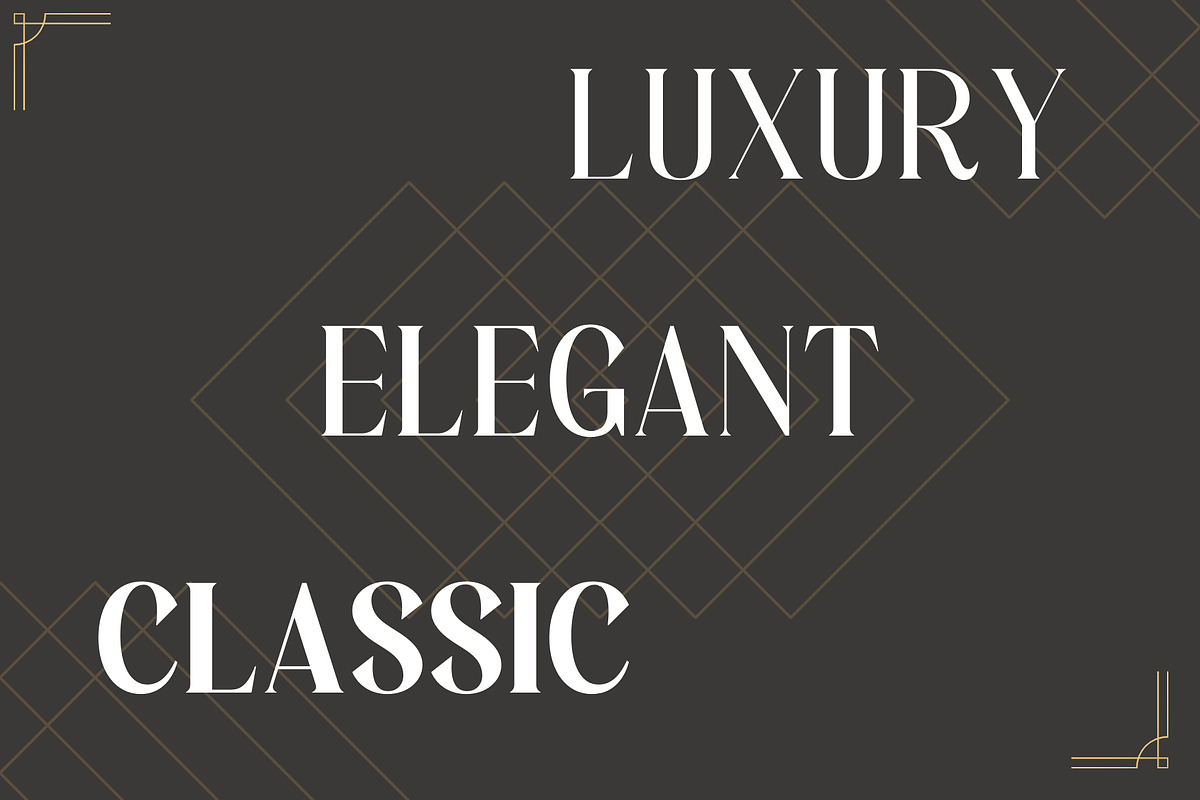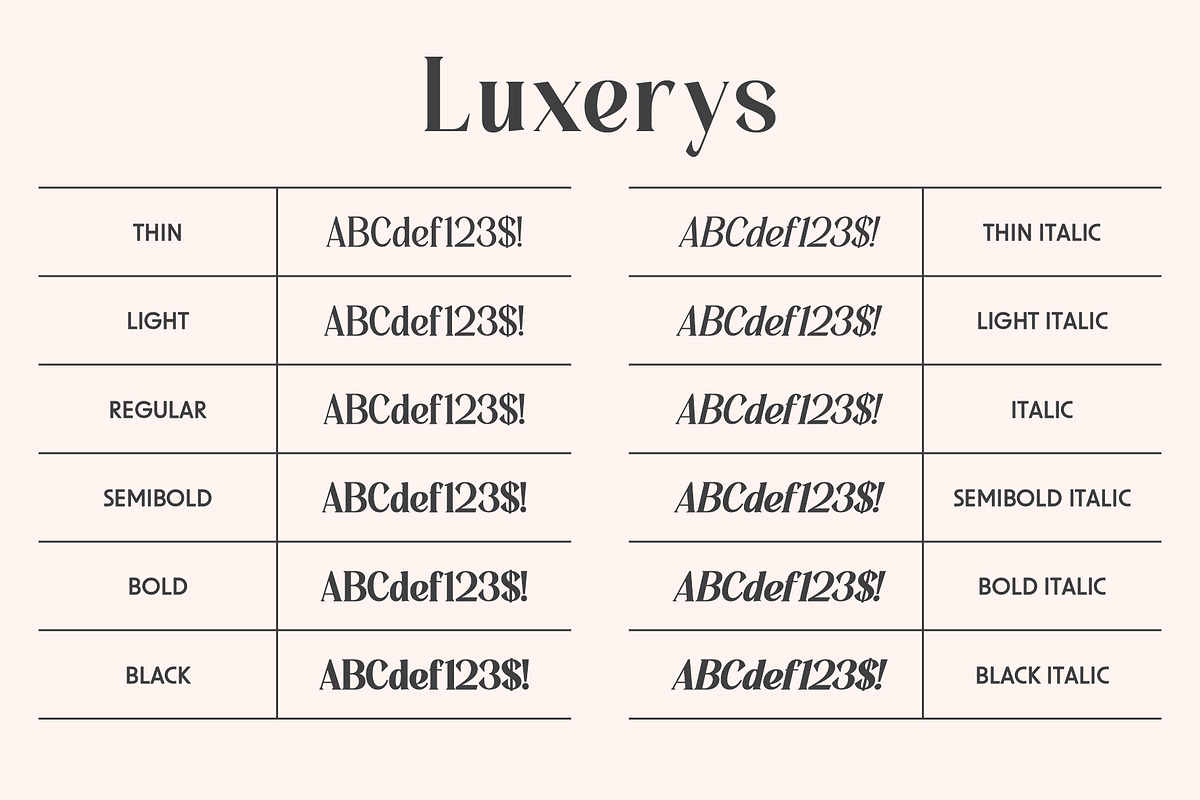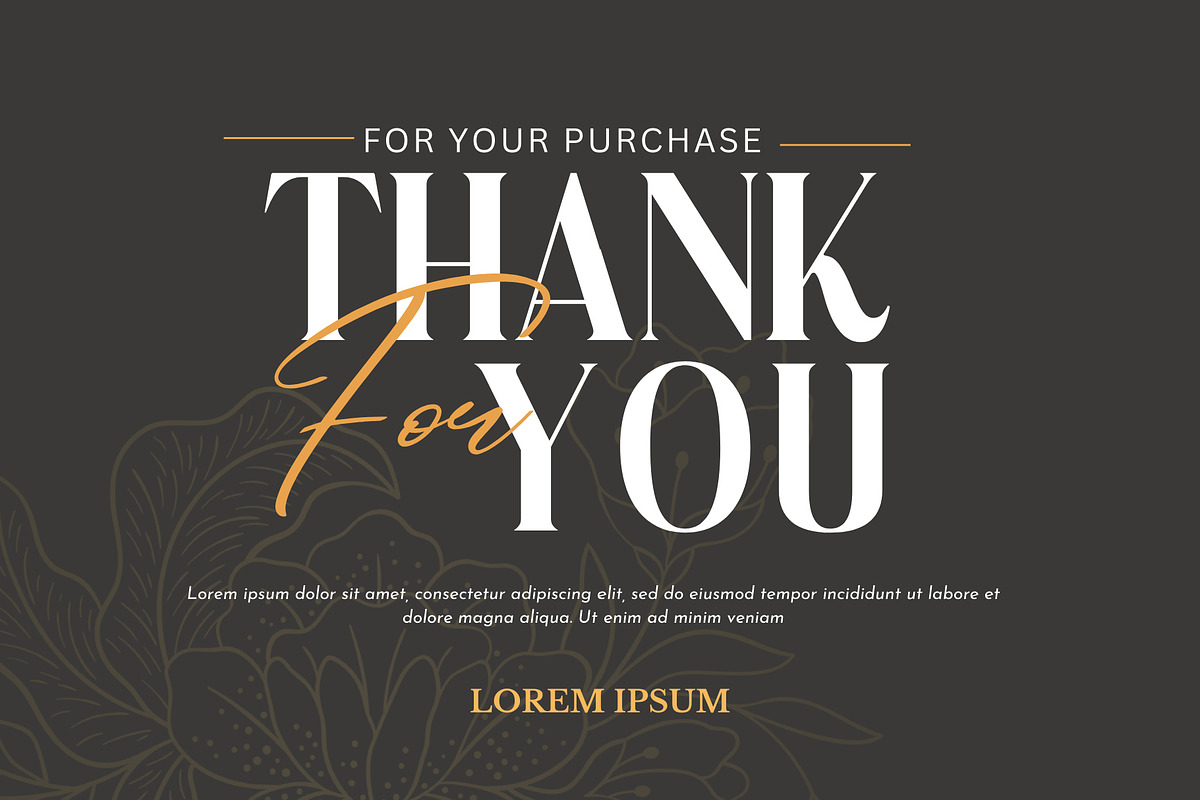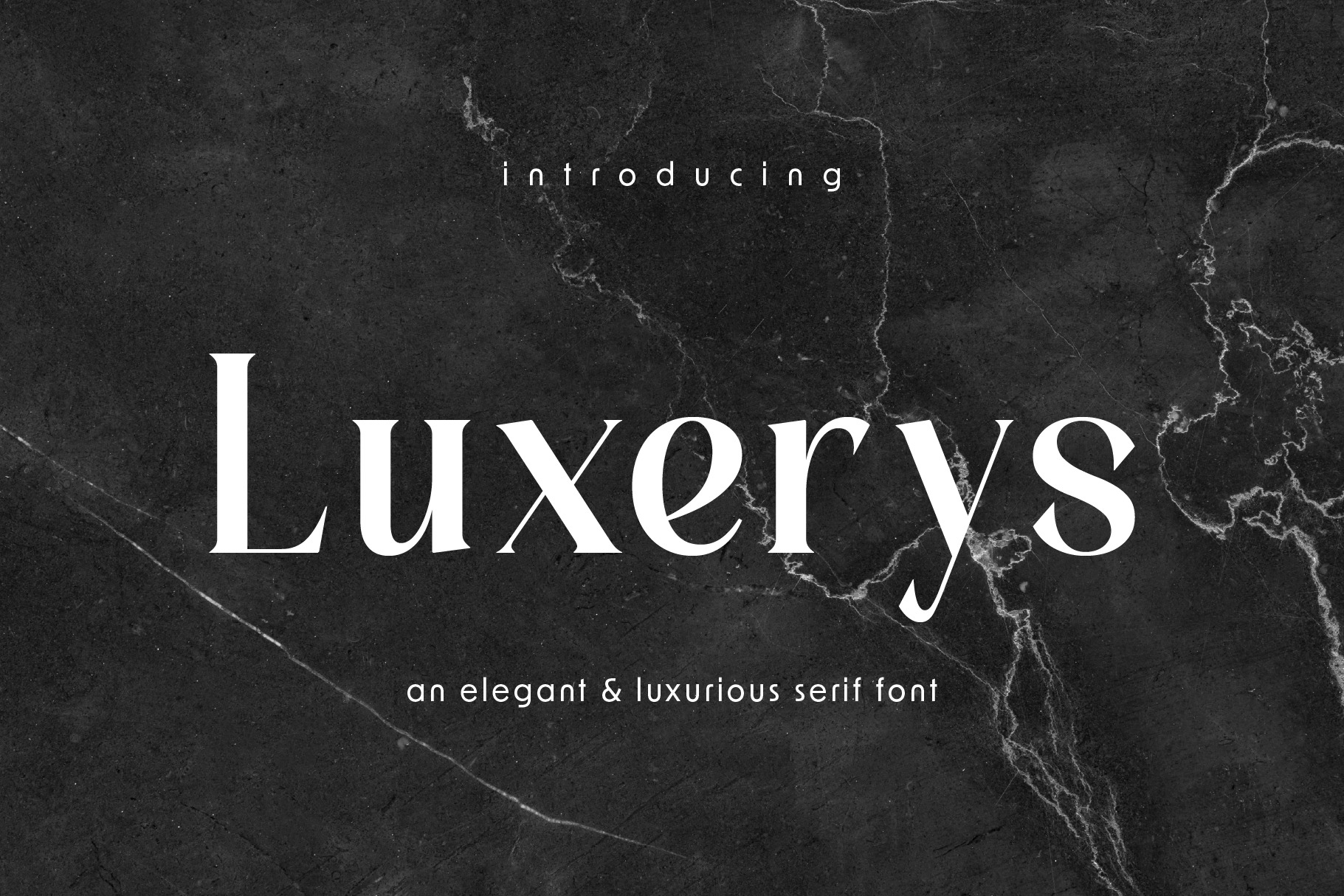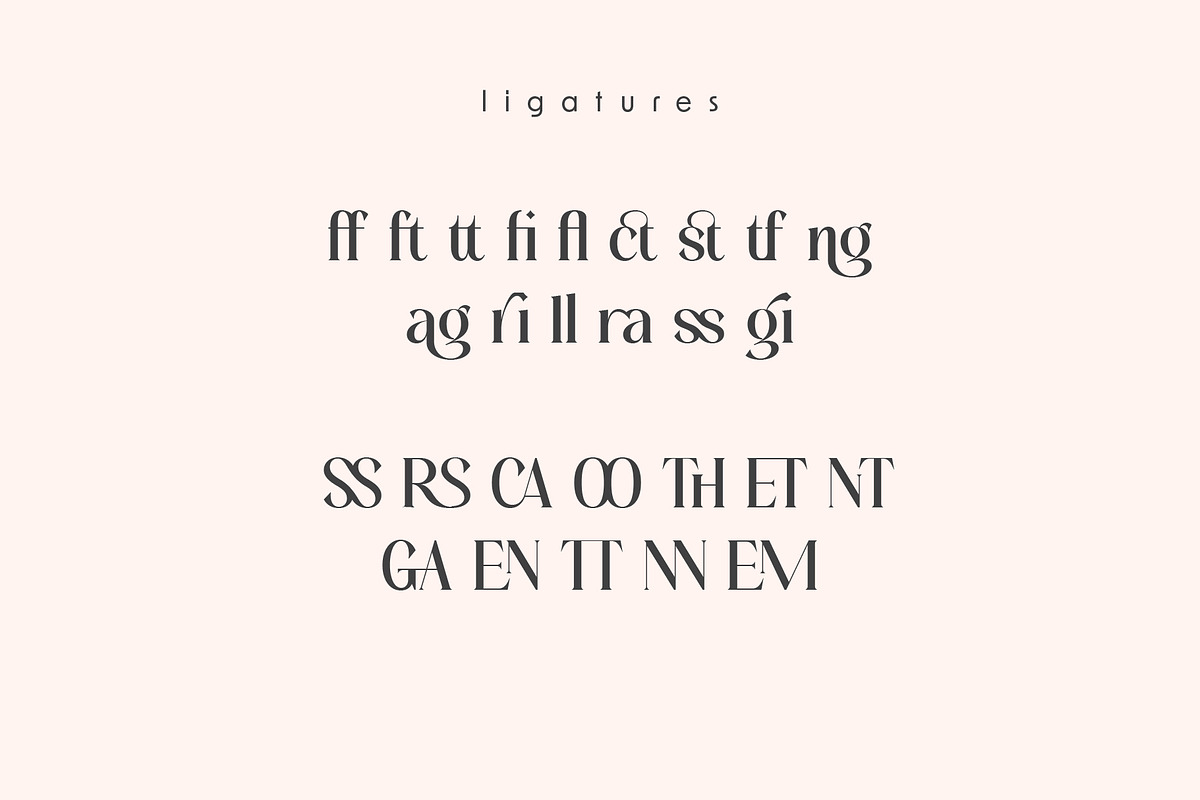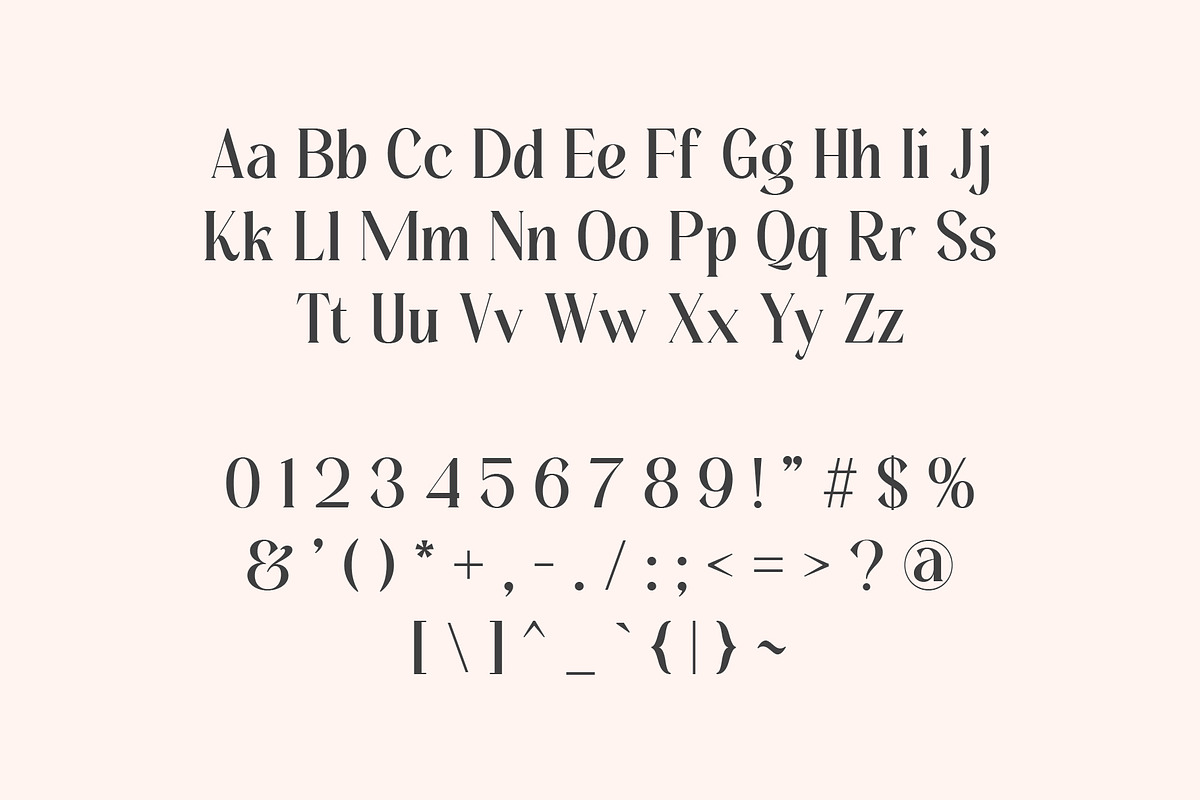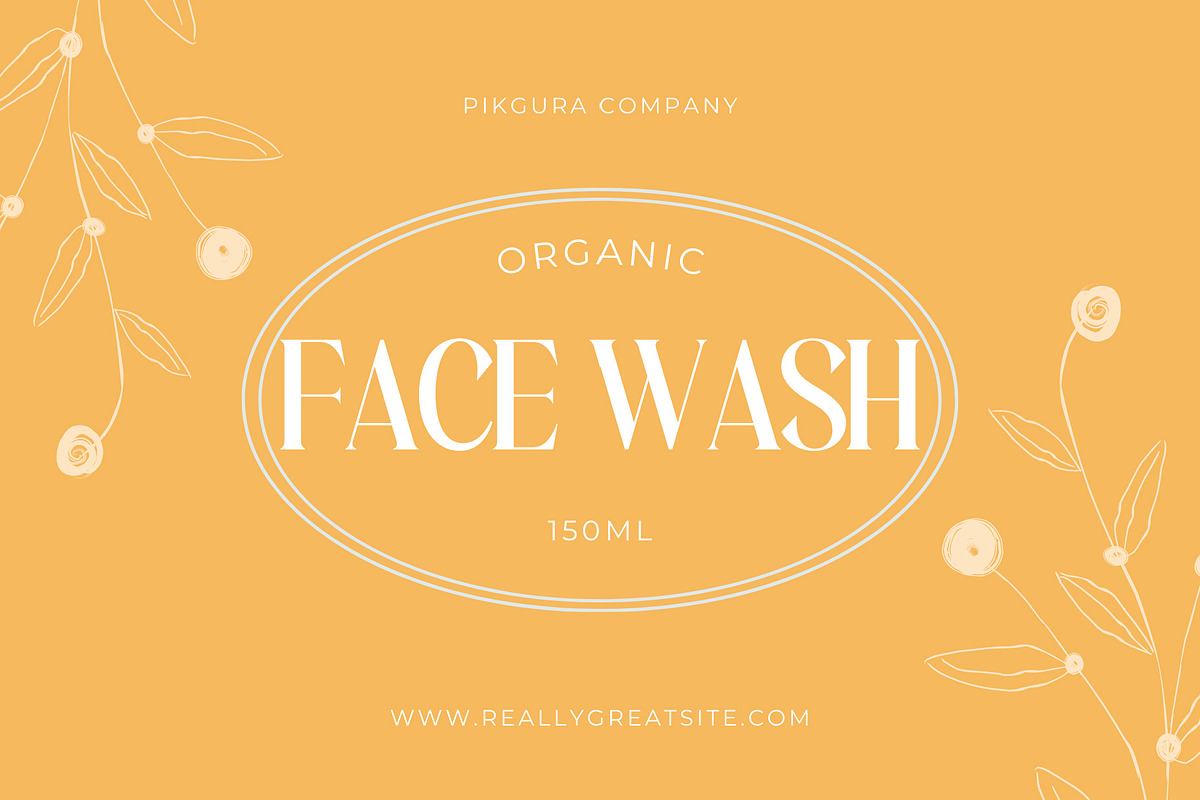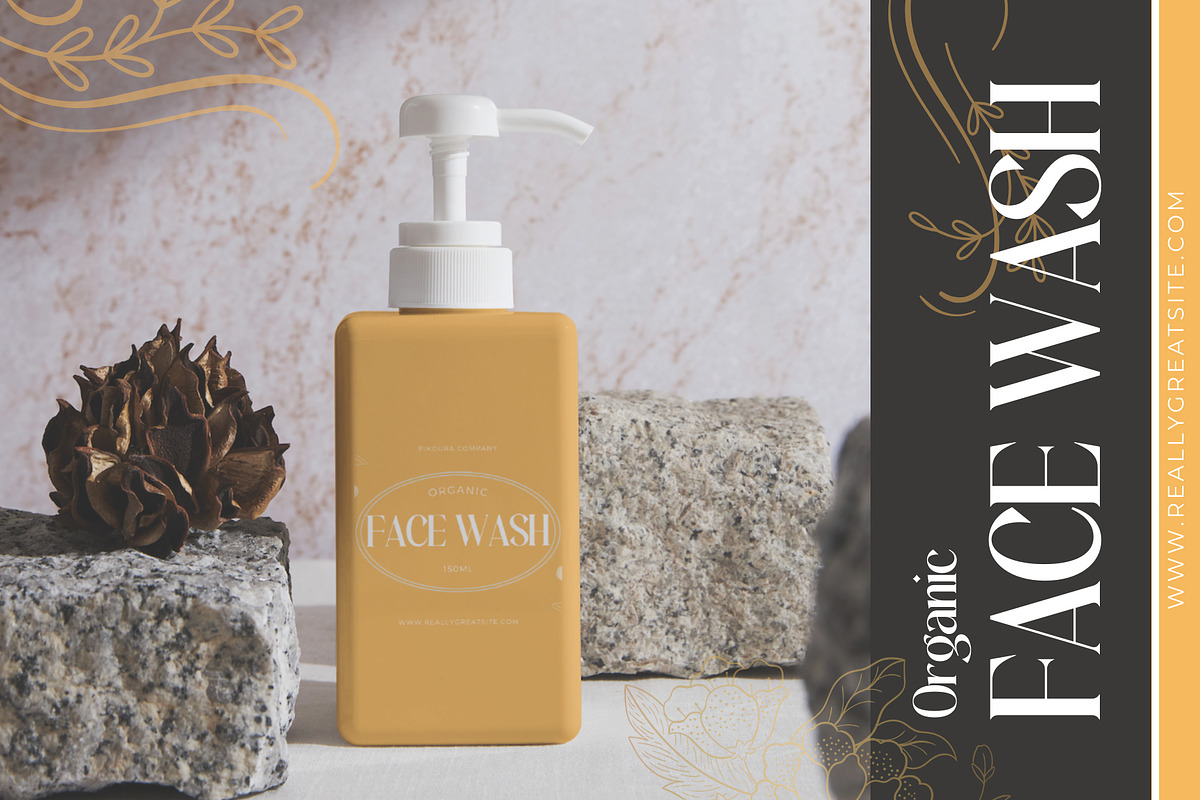
Luxerys - Luxurious Serif Font
Introducing Luxerys, a classic and elegant serif font family with stylish curves that bring a touch of sophistication to any design. Luxerys is the perfect choice for creating feminine and luxurious designs, making it ideal for wedding invitations, fashion magazines, jewelry catalogs, beauty products, and more. This versatile font family comes in multiple weights and includes an italic style, providing you with the flexibility to craft stunning and unique designs.
Luxerys features a comprehensive set of characters, including uppercase and lowercase letters, numbers, basic punctuation, and several ligatures. Each character is meticulously designed to ensure optimal readability and aesthetic appeal. Whether you’re working on a high-end fashion magazine or a delicate wedding invitation, Luxerys will elevate your project with its timeless elegance and stylish sophistication.